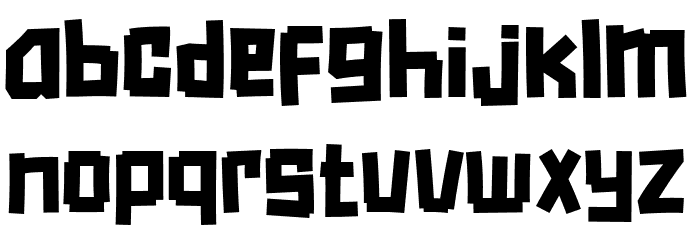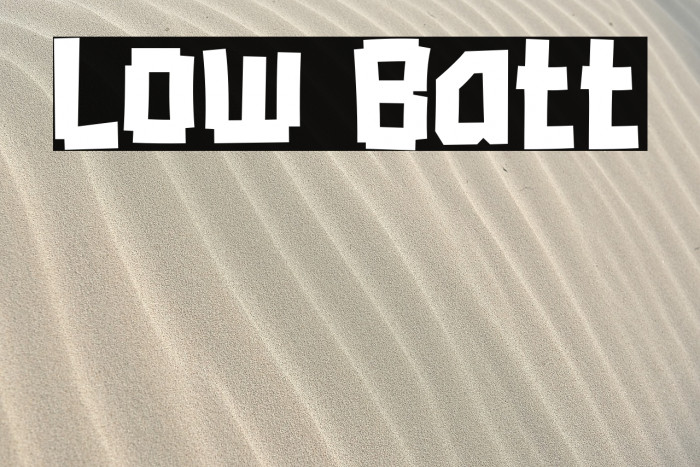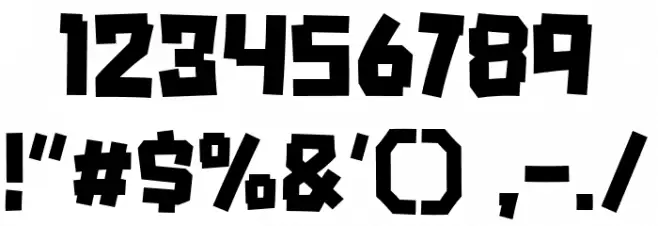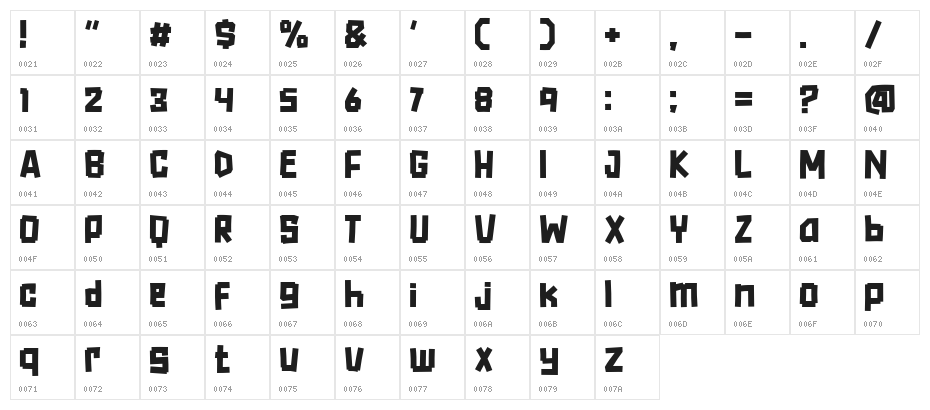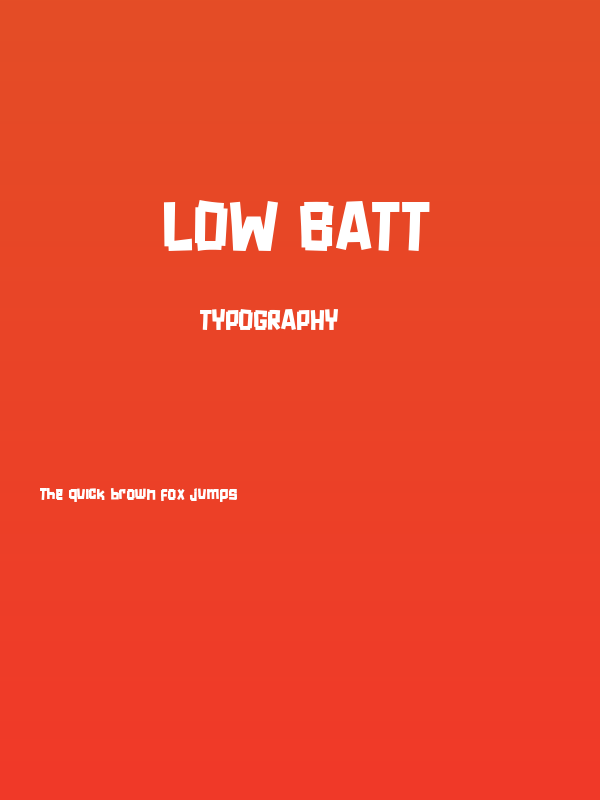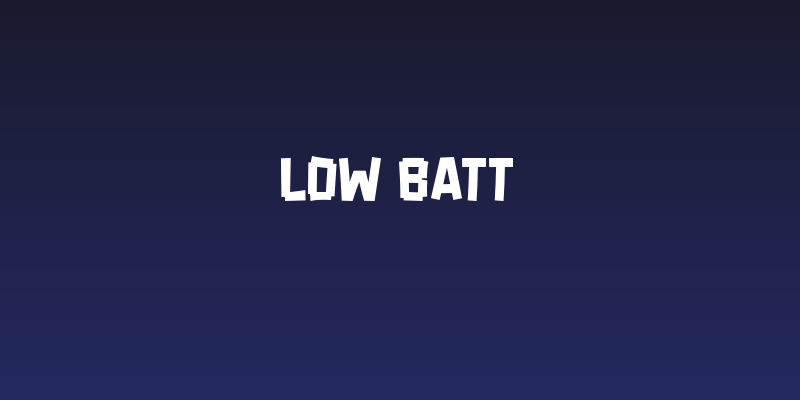
Low Batt Font
This font features a bold, angular design with a distinctively rugged and edgy appearance. The characters are blocky and geometric, with sharp angles and a slightly irregular form that gives it a dynamic and energetic feel. The uppercase and lowercase letters maintain a consistent style, while the numerals and special characters complement the overall aesthetic. The font's unique style makes it stand out, ideal for projects that require a strong visual impact. Its boldness and distinctive character shapes make it suitable for attention-grabbing headlines and creative designs.
A bold, angular font with a rugged, geometric style.
- Proposed Projects: Ideal for posters, album covers, video game graphics, and branding that requires a bold statement.
- Overall Style: Modern, Edgy